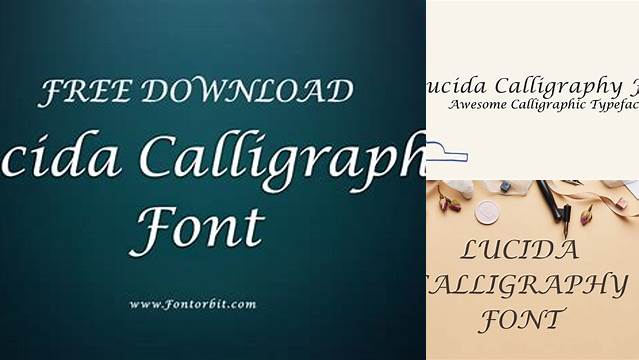
Hey everyone! Are you on the hunt for a beautiful, classic font for your Mac? Well, look no further! Lucida Calligraphy is a fantastic choice, and guess what? You can often find it available for a free download! In this article, we'll dive deep into everything you need to know about getting your hands on this elegant typeface, including where to find it, how to install it, and some cool ways to use it. So, let's get started and get your Mac looking stylish! Lucida Calligraphy is more than just a font; it's a statement. Its flowing strokes and graceful curves can transform any document, invitation, or design project. Ready to learn how to get it for your Mac? Let's go!
Customizing Your Text with Lucida Calligraphy Font on Mac
Once you've got Lucida Calligraphy installed, it's time to get creative! This font is perfect for adding a touch of elegance to your work. Here are some cool ways to customize your text: first, use it for headings and titles: Lucida Calligraphy is perfect for creating beautiful and eye-catching headings. Use it for invitations, certificates, or any document that needs a touch of class. Second, incorporate it into your logo design: if you're creating a logo, consider using Lucida Calligraphy for your company name or tagline. It adds a sophisticated and memorable touch. Third, experiment with sizes and styles: try different font sizes and styles to find what works best for your design. Bold and italic variations can add emphasis. Fourth, use it for special occasions: this font is great for invitations, greeting cards, and other special event materials. It adds a personal and elegant touch. Fifth, combine it with other fonts: pair Lucida Calligraphy with a simple sans-serif font for body text to create a balanced design. Sixth, use it in design software: use Lucida Calligraphy in graphic design software like Adobe Photoshop or Illustrator to create posters, social media graphics, or website banners. Consider using color: experiment with different colors to make the font pop and match the overall theme of your design. Remember to always consider readability: make sure the font size and style are easy to read, especially in long passages of text. By using these ideas, you can create stunning designs with the help of Lucida Calligraphy.
Tips for Creating Stunning Designs with Lucida Calligraphy Font
Let's dive into some tips to create stunning designs using the Lucida Calligraphy font. First, consider your layout: arrange your text and elements in a visually appealing way. Experiment with different layouts to find what works best. Second, choose the right colors: select colors that complement the font and the overall theme of your design. Contrast can make your text stand out. Third, pay attention to spacing: use appropriate spacing between letters, words, and lines to make your text easy to read. Fourth, choose the right background: make sure your background doesn't clash with your text. A clean, simple background often works best. Fifth, experiment with effects: you can add effects like shadows, outlines, or glows to enhance the font's appearance. But be careful not to overdo it. Sixth, use it in combination with images: integrate images and graphics to create a more dynamic and visually appealing design. Consider the overall feel: think about the message you want to convey and the mood you want to create. The font choice should align with this. Consider your audience: consider your target audience and the context of your design. Tailor your design to resonate with them. Always prioritize readability: ensure that your text is easy to read, regardless of the design elements you add. Following these tips will help you create eye-catching designs that make a lasting impression.
Best Practices for Using Lucida Calligraphy Font in Various Projects
Lucida Calligraphy is a versatile font, great for various projects. But how can you make the most of it? Here's a look at the best practices for using it in different contexts. For invitations and announcements, use Lucida Calligraphy for names, dates, and special phrases. Use a simple background and elegant layout. In greeting cards, use it for heartfelt messages and greetings. Pair it with other fonts for body text. In logo design, use it for the company name or tagline. Keep it simple and memorable. For certificates and awards, use it to highlight the recipient's name and achievements. Use gold or other premium colors. In marketing materials, use it sparingly for headlines or accents. Use it in a way that catches the eye. For websites and blogs, use it for headings or titles to make your content stand out. Ensure it's readable on different devices. For social media graphics, use it for quotes or short messages. Make sure it is visible on mobile devices. Consider the context of your project: make sure it is appropriate for the content and target audience. Balance elegance with practicality: while it looks great, ensure that it is easy to read and doesn't overpower the overall design. Always prioritize readability and ensure it fits well with the other design elements. When you use Lucida Calligraphy, consider these aspects to make the most of your font.
Creative Project Ideas with Lucida Calligraphy Font
Need some inspiration for projects using Lucida Calligraphy? Here are some creative ideas to get your juices flowing. Create personalized invitations: design invitations for weddings, birthdays, or other special events. Use elegant layouts and embellishments. Design custom greeting cards: craft unique cards for special occasions like birthdays, anniversaries, or holidays. Add handwritten notes for a personal touch. Create elegant certificates and awards: design awards and certificates for various achievements. Add custom text and ornate borders. Design stylish social media posts: create eye-catching graphics for social media platforms like Instagram and Pinterest. Use quotes, announcements, or promotional messages. Design custom stationery: design personalized stationery, including letterheads, envelopes, and business cards. Use the font for a professional and elegant look. Create artistic quotes and posters: design posters with inspirational quotes or artistic sayings. Combine it with other fonts and graphics. Create digital artwork: use it in digital artwork, combining it with other visual elements to create unique designs. Create a custom scrapbook page: create a themed scrapbook page to commemorate an event, travel, or other memory. Add personalized text and elements. Start a calligraphy project: use the font as inspiration to learn calligraphy and create your own handwritten pieces. By using these project ideas, you can discover the versatility of Lucida Calligraphy.